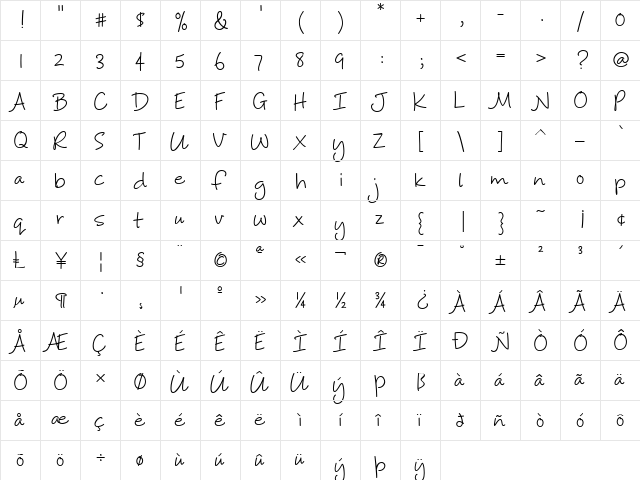
Corky Regular
| Foundry | TYPADELIC FONTS |
| Designer | Ronna Penner |
Corky is a composed and adaptable typeface that performs quietly and consistently across a wide range of design contexts.